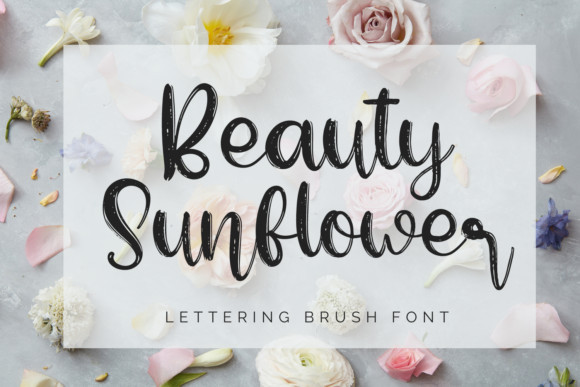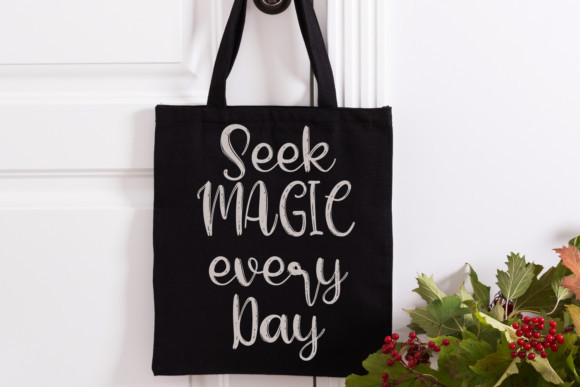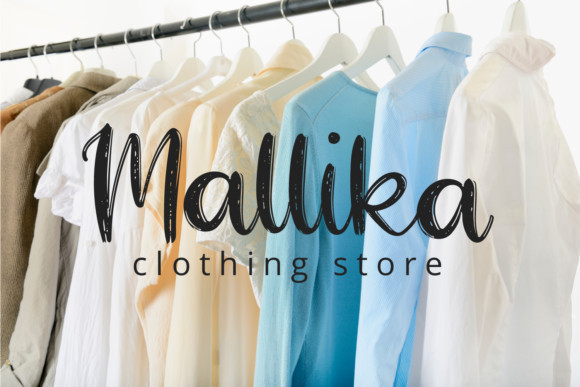
Beauty Sunflower Font
Beauty Sunflower is a delicate, fairytale like and joyful handwritten font. Its distinct and well rounded letters make this font a masterpiece. Fall in love with its incredibly versatile style and use it to create spectacular designs!